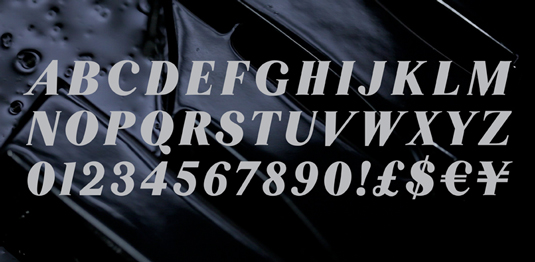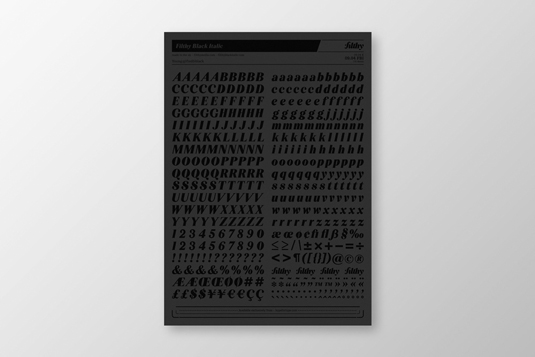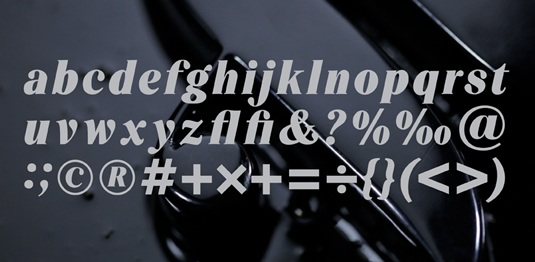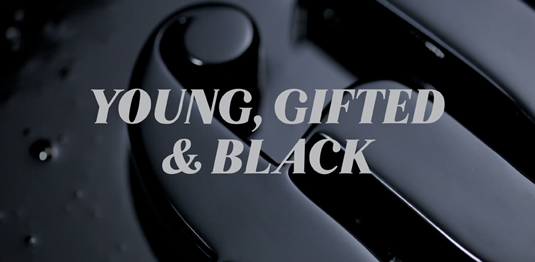
Font of the day: Filthy Black Italic
Every day we showcase the best fonts on the web. Today it's Filthy Black Italic by filthymedia.
Filthy Black Italic by filthymedia
Our font of the day is Filthy Black Italic, created by Brighton-based digital agency filthymedia. Inspired by latex textures and curvaceous forms, Filthy Black Italic is a display typeface intended to be viewed at large size. With a heavy weight and distinctive small serifs, the team has created a typeface best used for headlines and titles.
"We rebranded filthy in 2011 with a bespoke logotype," says filthymedia creative director Joe Pilbeam. "We liked the font so much we decided to develop it into an entire typeface."
filthymedia also produced a limited run of Letraset-inspired A3 specimen sheets to give away free with the first fifty purchases of Filthy Black Italic. Printed on 140GSM GF Smith Black Plike with spot UV varnish, they illustrate the high quality and style of the font, particularly when used at larger sizes.